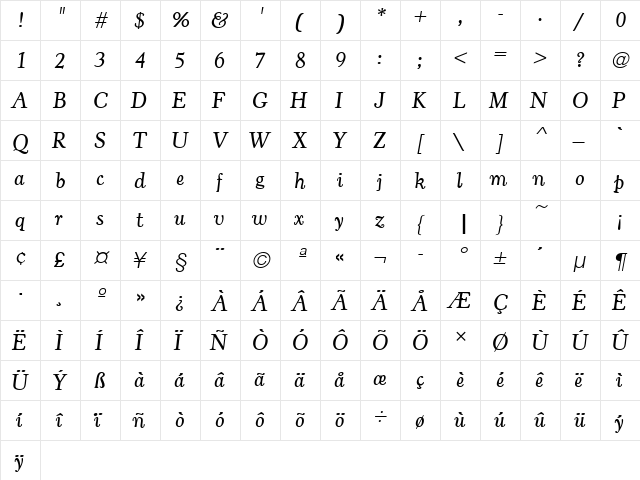
CooperOldStyURWTLig Italic
Design Context for CooperOldStyURWTLig Typeface
CooperOldStyURWTLig takes a measured approach to typography — its balanced proportions and neutral character make it a reliable workhorse for both digital and print work. The slanted form adds forward momentum and visual energy.
Pro Tip: Use CooperOldStyURWTLig for emphasis, pull quotes, and subheadings where its slanted energy can add rhythm to the layout.